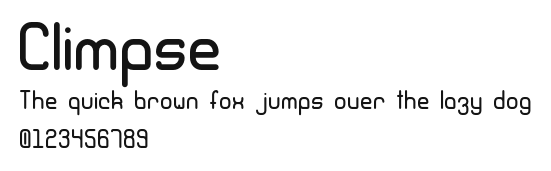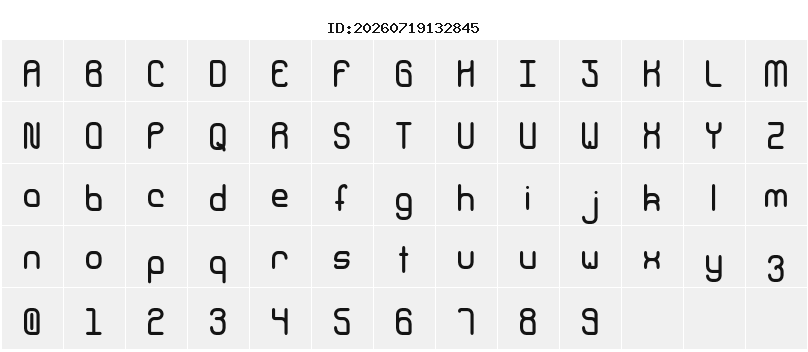
Climpse Preview
• Font Name: Climpse
• Full Font Name: Climpse
• PostScript Name: Climpse
About Climpse.otf
Climpse.otf is a modern, elegant sans-serif font designed for ultimate readability and visual harmony. Perfect for branding, headlines, web design, and print materials.